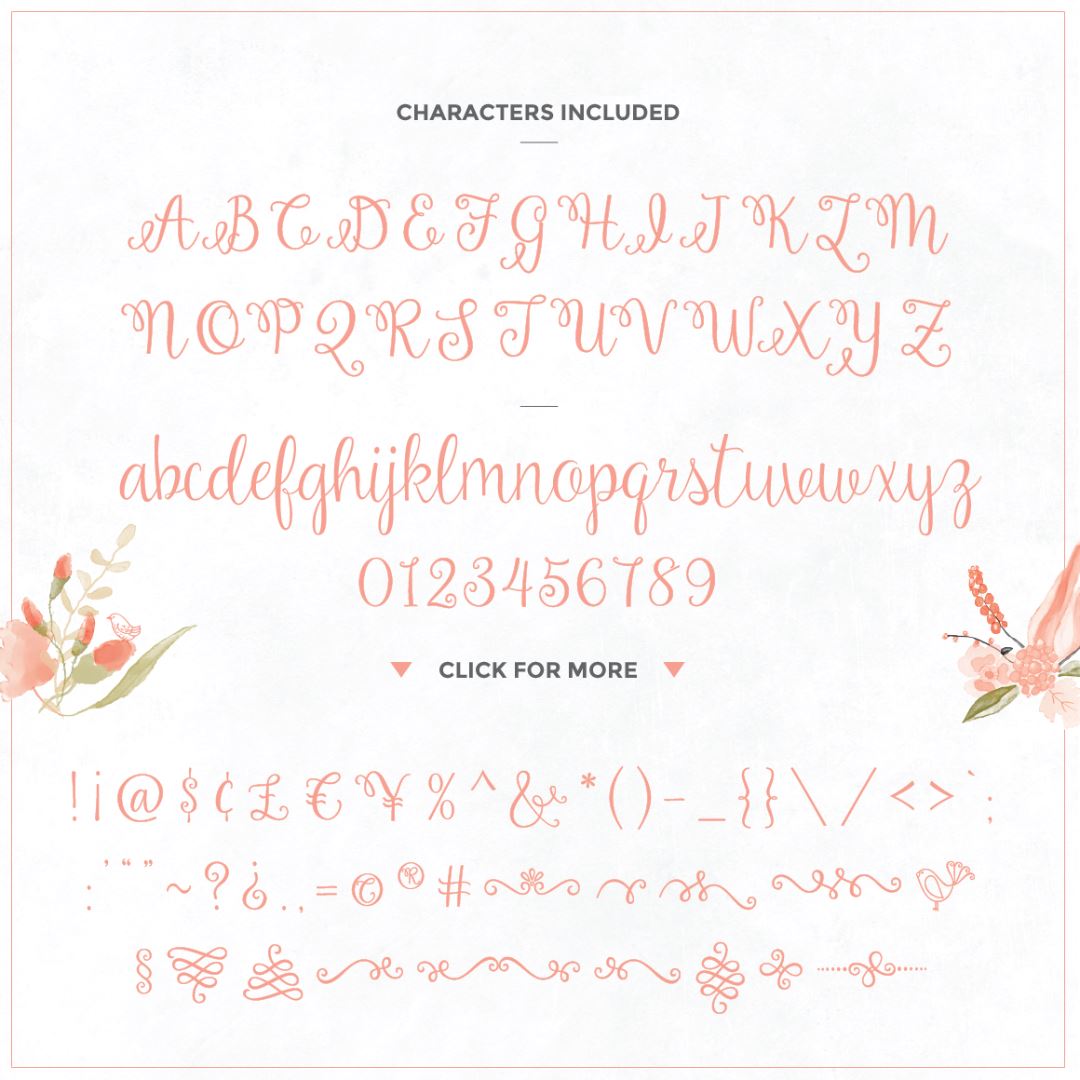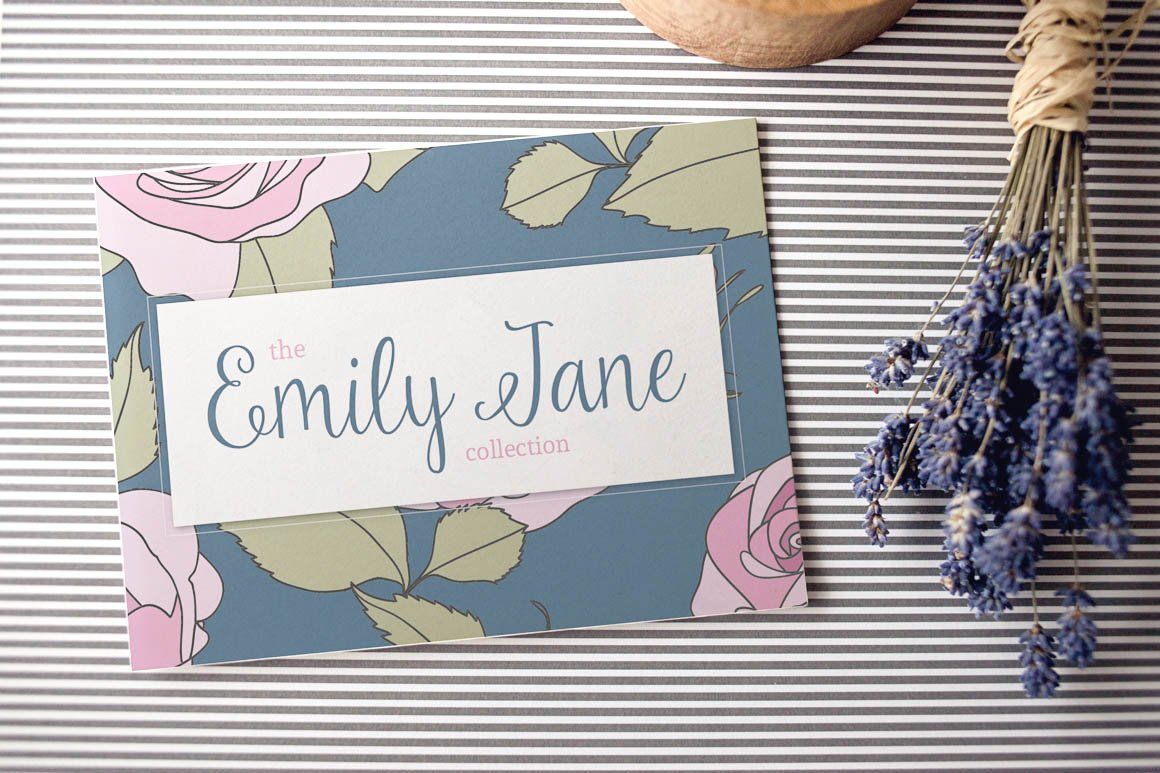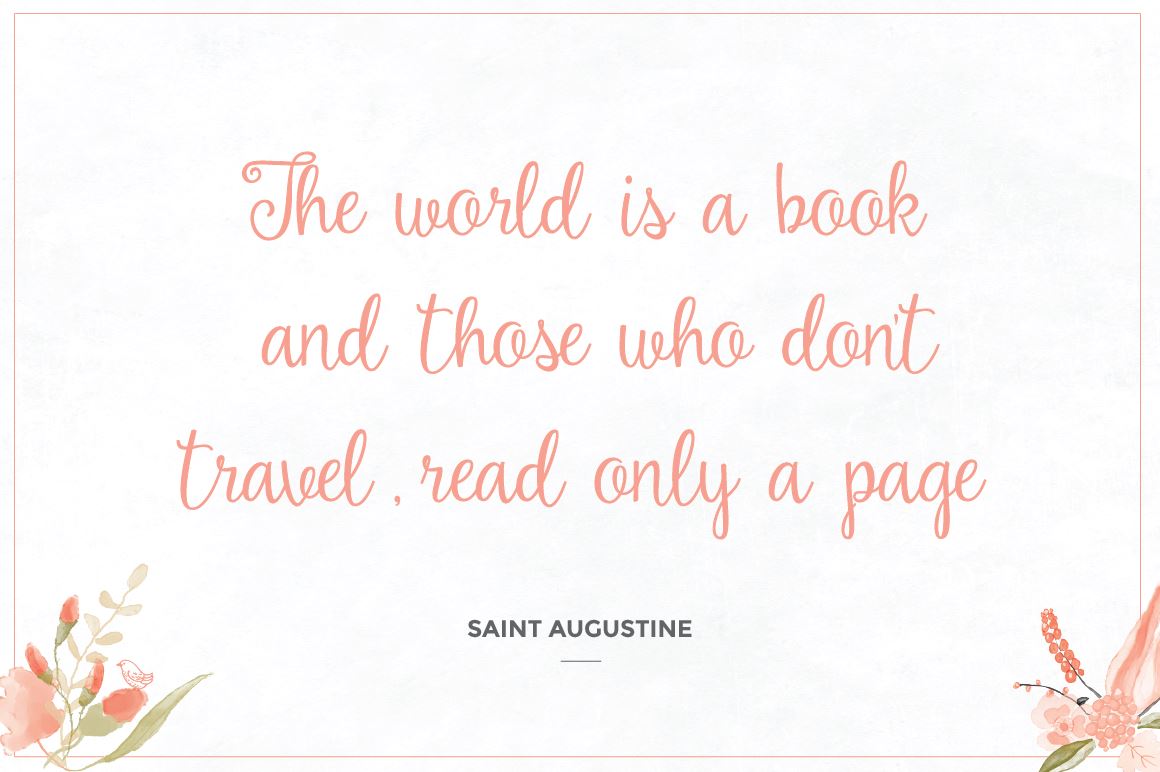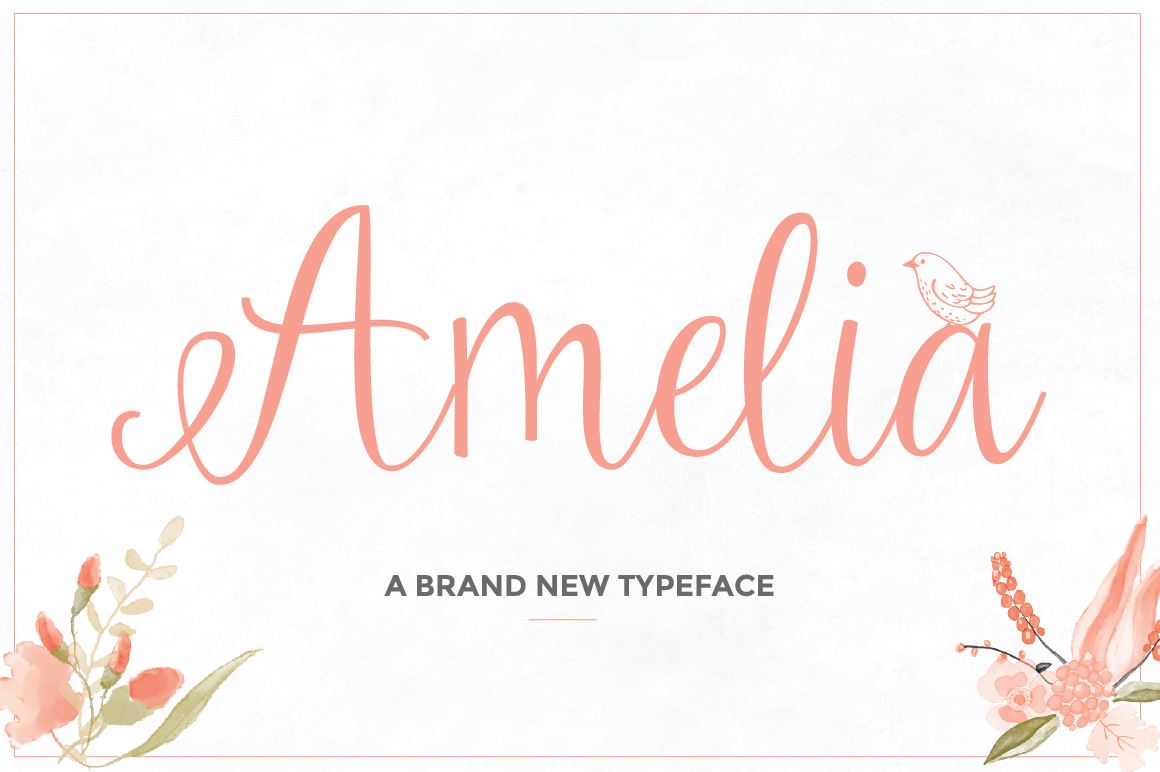
Amelia Script
About Amelia Script
Amelia is a new hand written font for 2015. Available for both personal and commercial use. No extended license is required. Download and use Amelia Script for anything and everything. Including over 180 different hand drawn characters for a range of languages and dialects. WHATS INCLUDED? Amelia.otf Amelia.ttf Web fonts included (EOT, SVG, WOFF & WOFF2 Files) An installation guide for both Windows and Mac computers. Amelia Ornaments (including 28 glyphs) Download within a few clicks and use across a huge range of programs including Photoshop, InDesign, Illustrator and Microsoft Word as well as many more. Not sure how to install a font? No problem. We have included a free installation guide explaining how to install our font on both a windows PC or MAC. If you have any questions or problems, please don’t hesitate to message me.